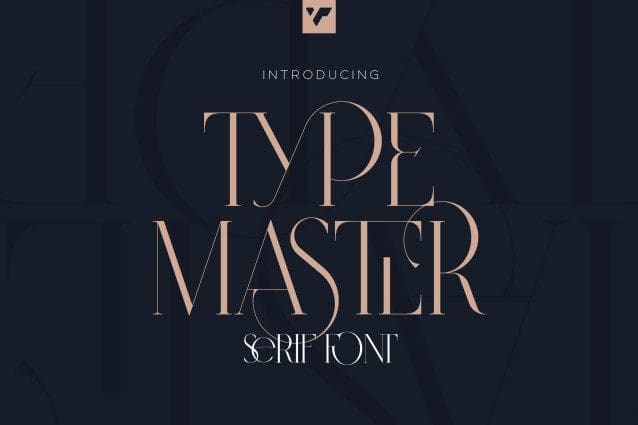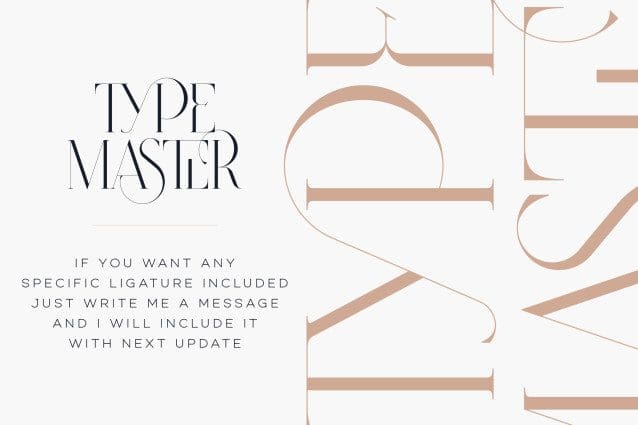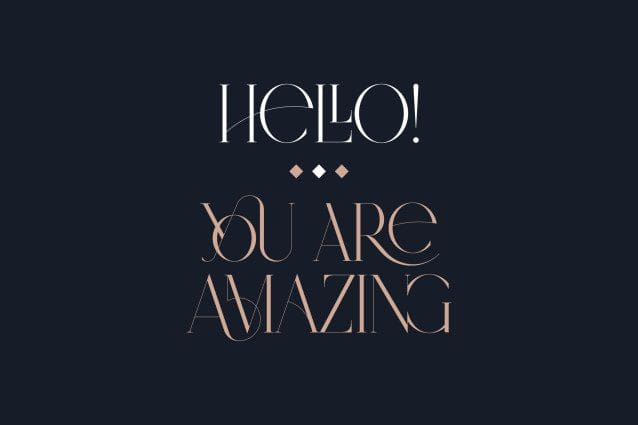
Type Master Font
Type Master Font is a sophisticated and delicate serif font that exudes elegance in every aspect. With its extensive collection of over 100 ligatures and alternate glyphs, this font offers endless possibilities for creative expression. Additionally, its support for 87 languages ensures that it is versatile enough to meet the needs of any project. Whether you are designing a logo, creating marketing materials, or crafting an editorial layout, Type Master is the perfect choice for adding a touch of refinement to your work.